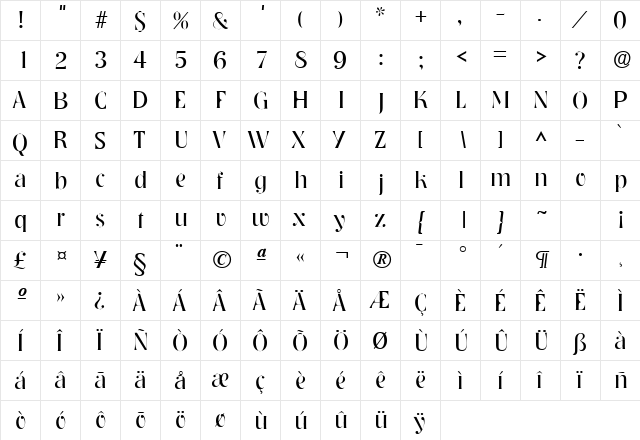
Tennessee Light SF Regular
Design Context for Tennessee Light SF Typeface
Tennessee Light SF is a composed and adaptable typeface that performs quietly and consistently across a wide range of design contexts. The delicate stroke weight brings airiness and refinement to layouts.